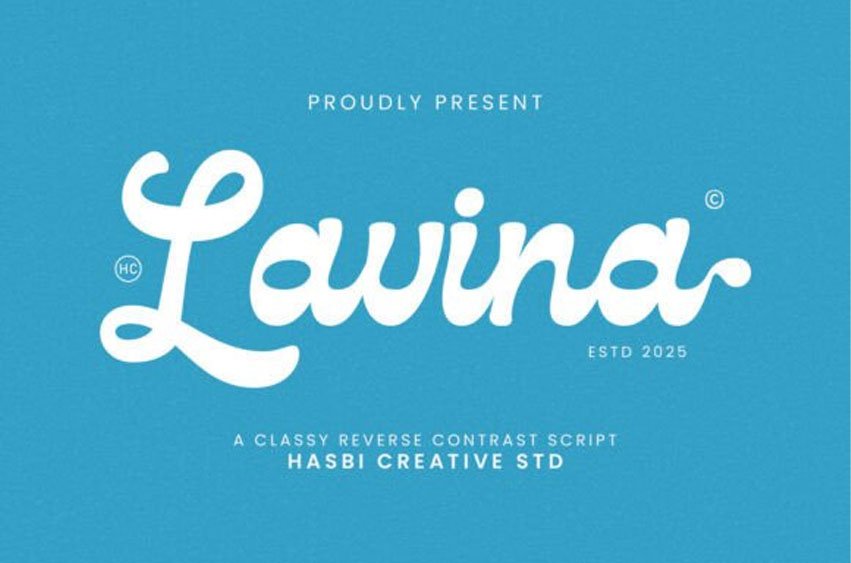
Hc Lavina Font is a bold yet elegant reverse contrast script font that brings a touch of retro charm with a modern twist. Designed with smooth curves and playful swashes, HC Lavina is perfect for branding, packaging, logotype, editorial headlines, and social media graphics.
With its distinctive contrast style—thick horizontal strokes and light verticals—Lavina delivers a unique, eye-catching look that sets your design apart. Whether you’re creating a vintage-inspired poster or a trendy logo, Lavina brings personality, sophistication, and warmth to every letter.